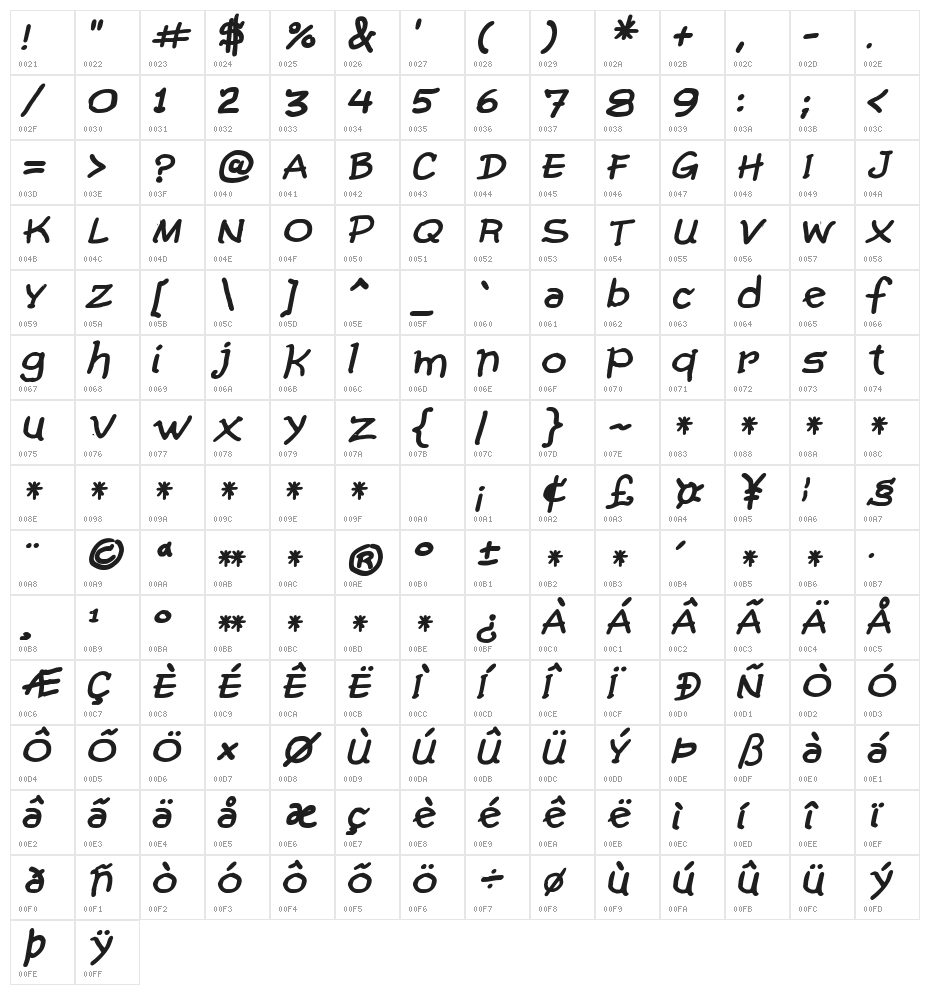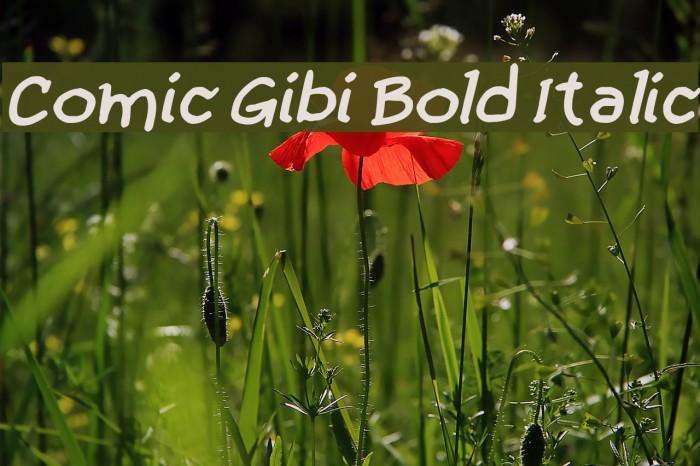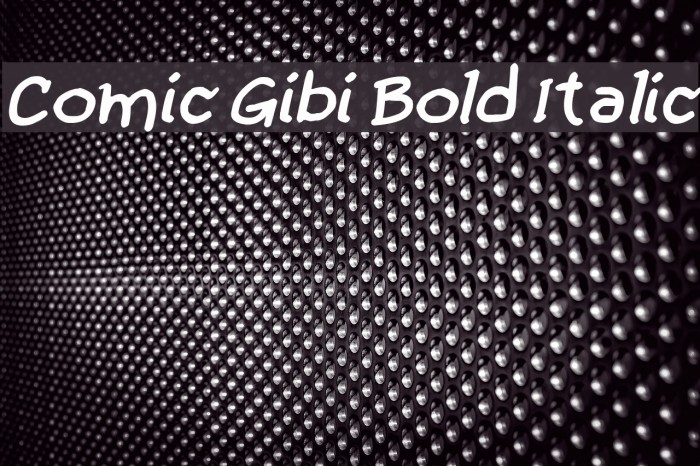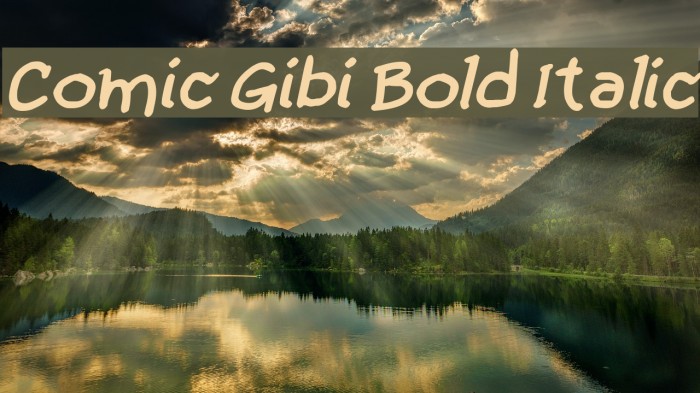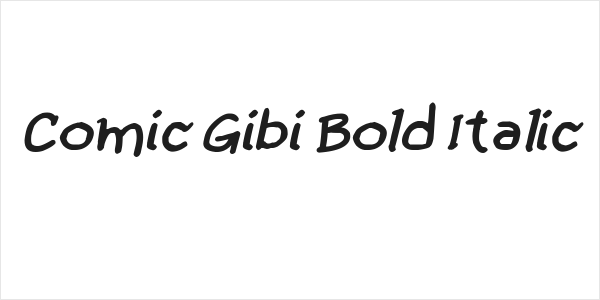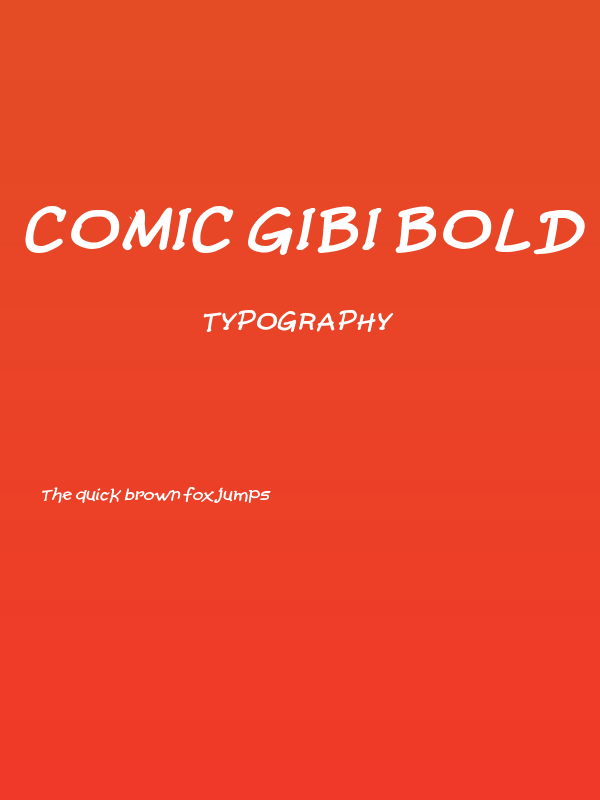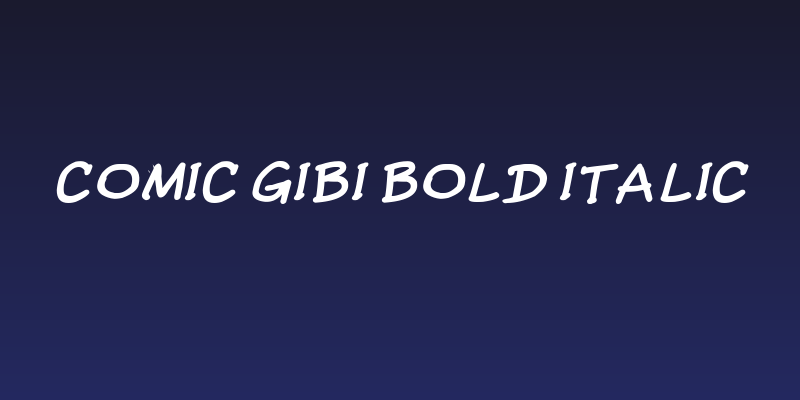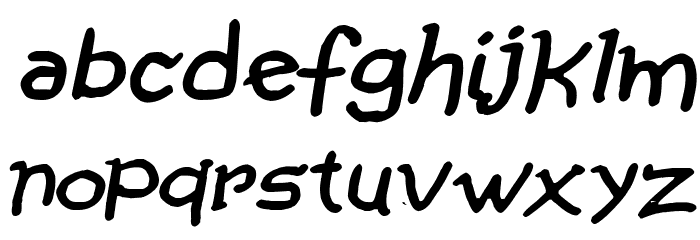
Comic Gibi Bold Italic Font
Comic Gibi Bold Italic Description
This playful and dynamic font features a bold and italicized style, reminiscent of comic book lettering. The characters are slightly slanted, adding a sense of motion and energy. The strokes are thick and rounded, giving a friendly and approachable appearance. The uppercase and lowercase letters maintain a consistent style, with a slight variation in the curvature and angles, enhancing its casual and informal look. The numbers and special characters are designed to match the overall aesthetic, making it versatile for various uses.
| Overall Style | Playful, Comic |
| Proposed Projects | Ideal for comic books, children's books, playful branding, and informal posters. |